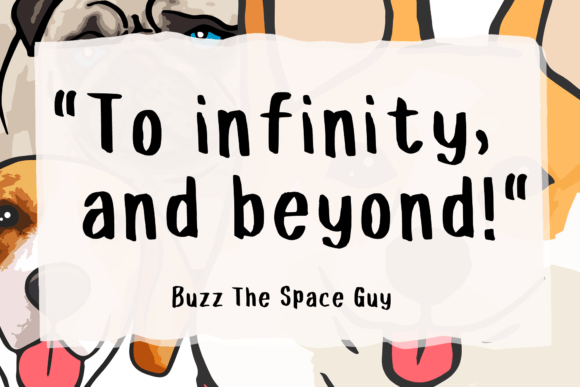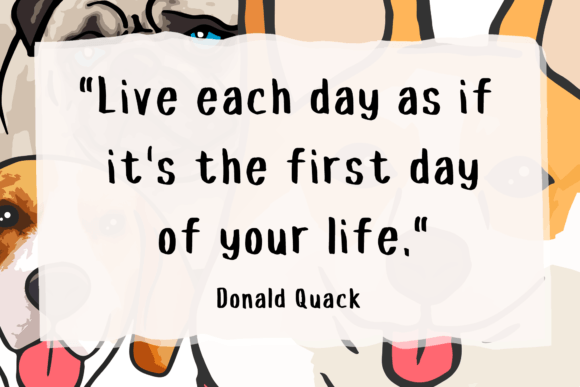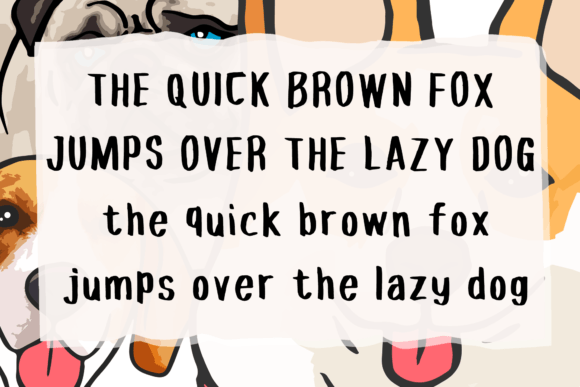
Introducing Dog Doggie Doc Font: The Ultimate Companion for Friendly Designs
Are you tired of using the same old fonts for your designs? Look no further! Dog Doggie Doc Font is a fun, handwritten font that’s sure to bring a smile to anyone’s face. With its impeccable friendliness, this font is perfect for a wide range of projects, from crafts and digital design to presentations and greeting cards.
The Perfect Font for Crafters and Designers
Dog Doggie Doc Font is a versatile font that’s designed to be your go-to companion for all your design needs. Its playful, handwritten style makes it perfect for:
- Crafts: Add a personal touch to your DIY projects, such as handmade cards, scrapbooking, and other paper crafts.
- Digital Design: Use it for social media graphics, blog posts, and website designs to add a friendly and approachable tone.
- Presentations: Make your presentations more engaging and fun with this unique font.
- Greeting Cards: Create personalized and heartfelt greeting cards for special occasions.
What Makes Dog Doggie Doc Font So Special?
So, what sets Dog Doggie Doc Font apart from other fonts? Here are a few reasons why it’s sure to become your favorite:
- Friendliness: The font’s playful, handwritten style conveys a sense of friendliness and approachability, making it perfect for designs that need to connect with the audience.
- Versatility: Use it for a wide range of projects, from formal to informal, and still achieve a consistent look and feel.
- Ease of use: The font is easy to read and works well in various sizes, making it perfect for both digital and print designs.
Tips for Using Dog Doggie Doc Font
To get the most out of Dog Doggie Doc Font, here are some tips to keep in mind:
- Pair it with other fonts: Combine Dog Doggie Doc Font with other fonts to create a unique and interesting contrast.
- Experiment with colors: Try out different colors to match your brand or design theme.
- Use it for headings and titles: The font’s playful style makes it perfect for headings and titles, adding a touch of personality to your designs.
In conclusion, Dog Doggie Doc Font is a fun, versatile font that’s sure to become your go-to companion for all your design needs. Its friendly and approachable style makes it perfect for a wide range of projects, from crafts and digital design to presentations and greeting cards. So why wait? Give Dog Doggie Doc Font a try today and add a touch of personality to your designs!
Here are some frequently asked questions about Dog Doggie Doc Font:
- What type of font is Dog Doggie Doc Font?
- Dog Doggie Doc Font is a handwritten font.
- Can I use Dog Doggie Doc Font for digital designs?
- Yes, Dog Doggie Doc Font works well for both digital and print designs.